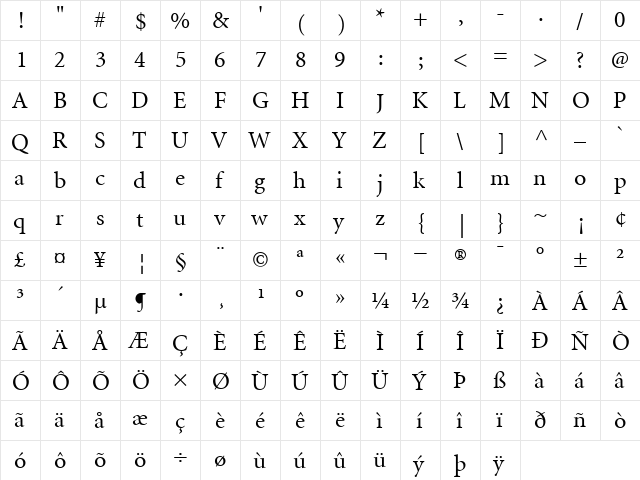
AdobeCorporateIDMinion Roman
Design Context for AdobeCorporateIDMinion Typeface
AdobeCorporateIDMinion takes a measured approach to typography — its balanced proportions and neutral character make it a reliable workhorse for both digital and print work.